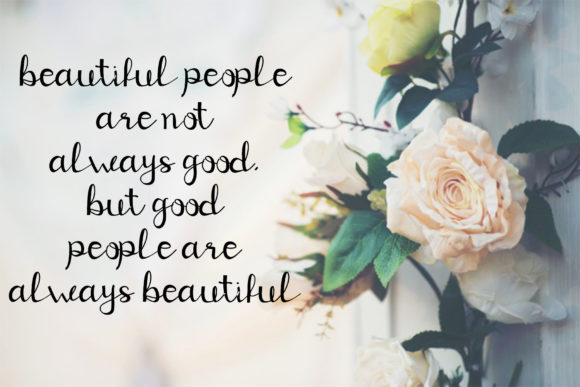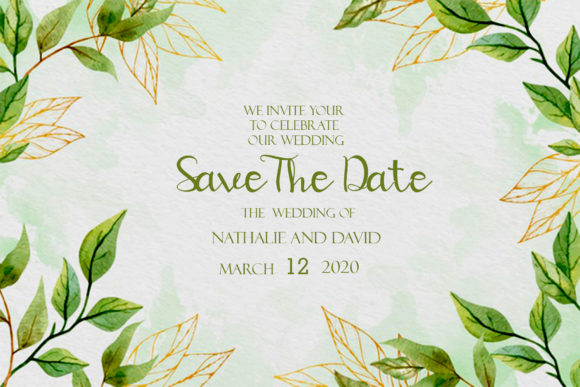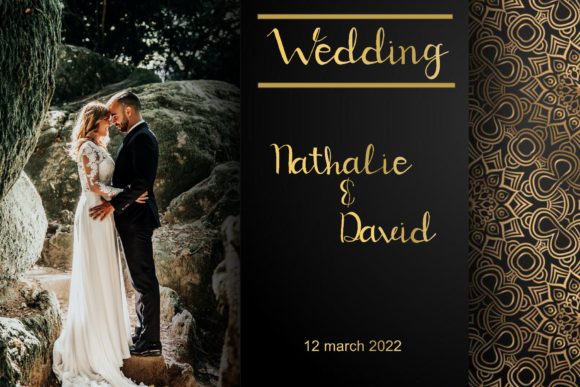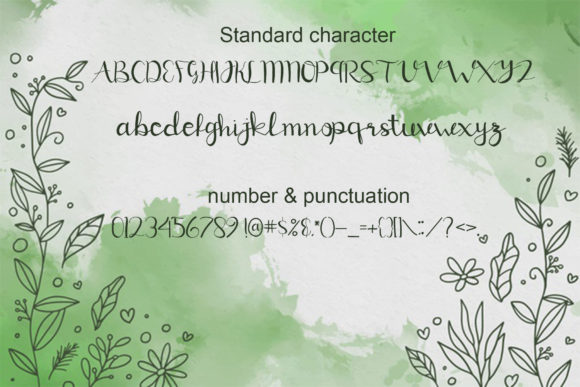
Introducing Alberina Font: The Elegant Handwritten Style for Your Designs
Are you looking for a font that adds a touch of elegance and personality to your designs? Look no further than Alberina Font, a unique and beautiful handwritten font that’s perfect for a variety of creative projects. From wedding invitations and thank you cards to logos and greeting cards, Alberina Font is the ideal choice for designers and crafters seeking a sophisticated and personalized style.
What Makes Alberina Font Special?
Alberina Font stands out from other fonts due to its distinctive handwritten style, which exudes warmth and sophistication. Its elegant curves and fluid lines make it perfect for designs that require a personal touch. Whether you’re creating wedding stationery, branding materials, or greeting cards, Alberina Font is sure to impress.
Characteristics of Alberina Font
So, what makes Alberina Font so special? Here are some of its key characteristics:
• Unique and elegant handwritten style: Alberina Font features a beautiful, one-of-a-kind handwritten style that’s perfect for adding a personal touch to your designs.
• Versatile: This font is suitable for a wide range of designs, including wedding invitations, thank you cards, logos, greeting cards, and more.
• Easy to read: Despite its elegant and cursive nature, Alberina Font is easy to read, making it perfect for body text and headings.
• High-quality: Alberina Font is a high-quality font that’s designed to deliver exceptional results in your designs.
Uses for Alberina Font
Alberina Font is an incredibly versatile font that can be used in a variety of creative projects. Here are some ideas to get you started:
• Wedding invitations and stationery: Add a touch of elegance and sophistication to your wedding invitations, save-the-dates, and other stationery with Alberina Font.
• Thank you cards and greeting cards: Create beautiful and personalized thank you cards and greeting cards with Alberina Font.
• Logos and branding: Use Alberina Font to create a unique and memorable logo for your business or brand.
• Social media graphics: Add a personal touch to your social media graphics, such as Instagram posts and Facebook graphics, with Alberina Font.
Tips for Using Alberina Font
Here are some tips for getting the most out of Alberina Font:
• Pair with complementary fonts: Pair Alberina Font with complementary fonts to create a visually appealing and harmonious design.
• Experiment with colors: Try out different colors and color combinations to find the perfect match for your design.
• Use it sparingly: Use Alberina Font sparingly to add emphasis and create visual interest in your design.
In conclusion, Alberina Font is a unique and elegant handwritten font that’s perfect for designers and crafters seeking a sophisticated and personalized style. With its versatile nature, high-quality design, and ease of use, Alberina Font is an excellent choice for a wide range of creative projects. So why not give it a try and see how it can elevate your designs?